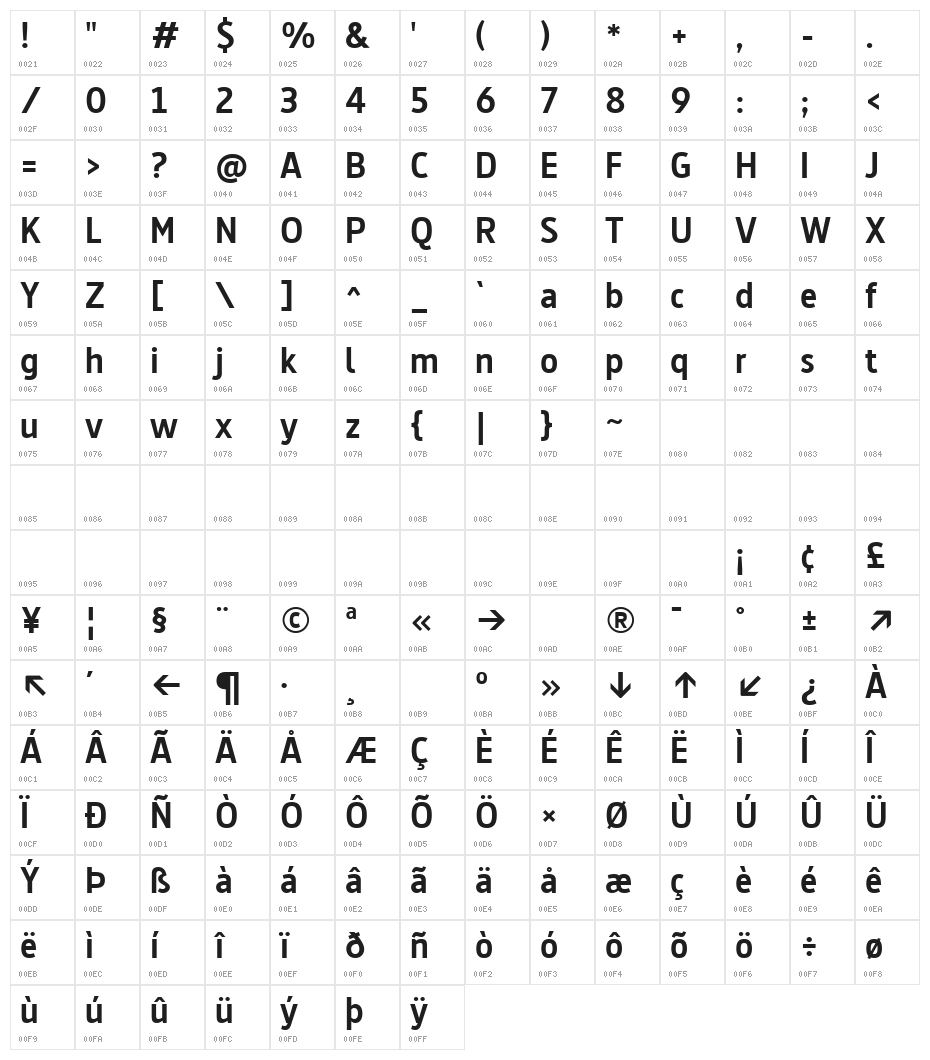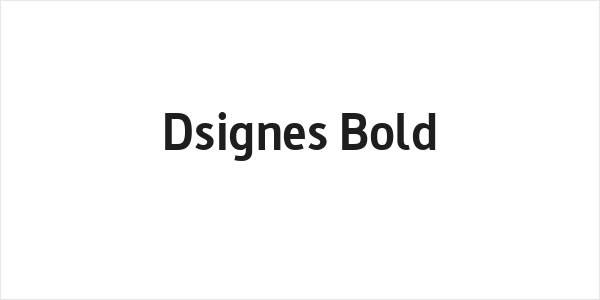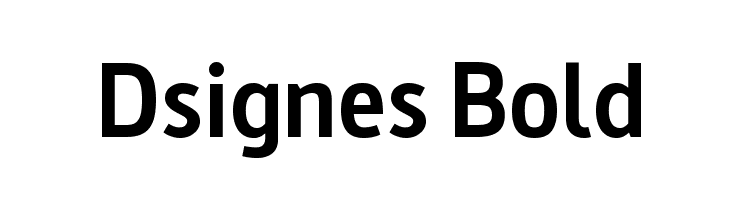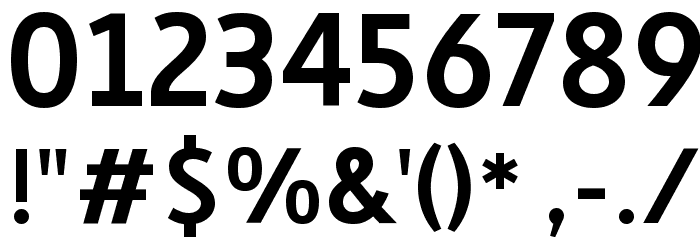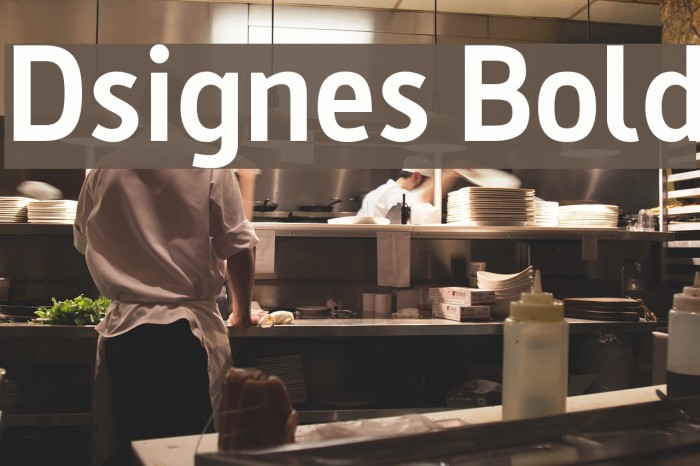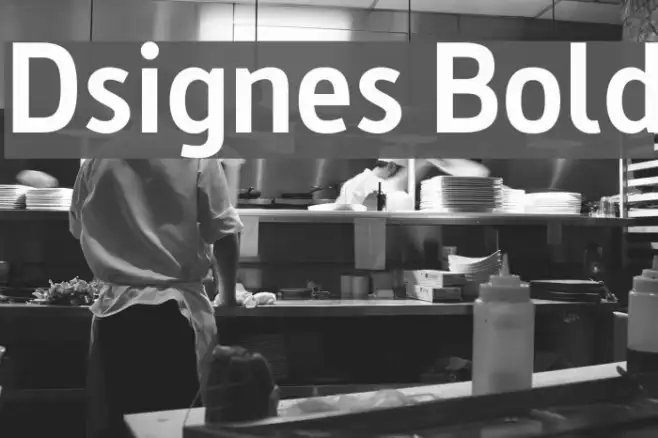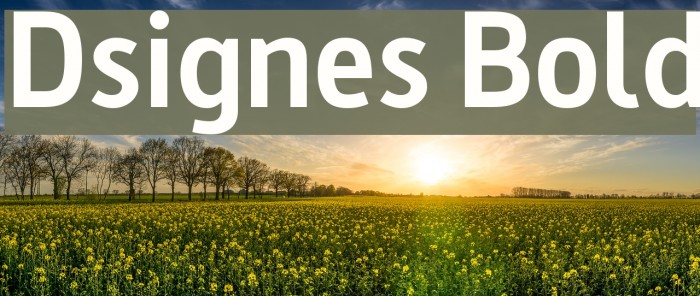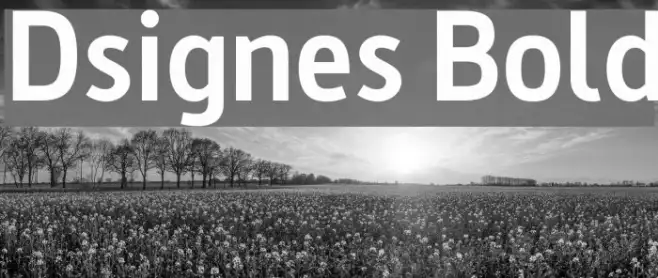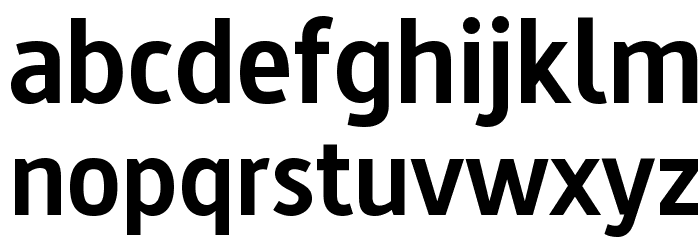
Dsignes Bold Font
Dsignes Bold Description
This typeface features a bold and assertive style with clean, straight lines and a modern aesthetic. The characters are well-proportioned, offering a harmonious balance between height and width. The uppercase letters are strong and commanding, while the lowercase letters maintain a consistent flow. Numbers are clear and easy to read, making them suitable for various applications. Special characters are distinct and integrate seamlessly with the rest of the font. The overall design is versatile, suitable for both digital and print media.